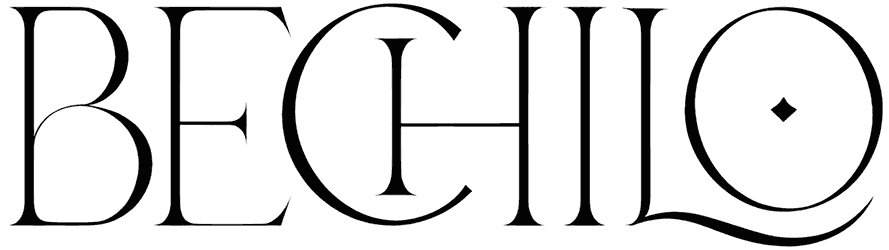
Bechilo Font
Deep down, we all know that a majestic serif font such as Bechilo is exclusively designed to be your faithful assistant in difficult graphic missions such as magazines, applications, branding projects, business cards, or book covers.
This masterpiece comes with a unique form, thus letting you share a feeling of authenticity, confidence, formality, or approachability with the audience. Considering all of its numerous advantages, the lack of numbers would never turn into a serious problem.